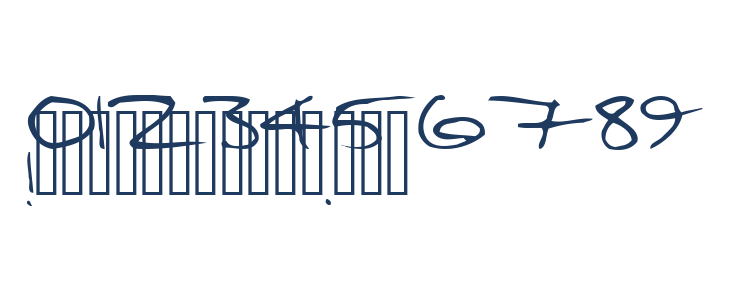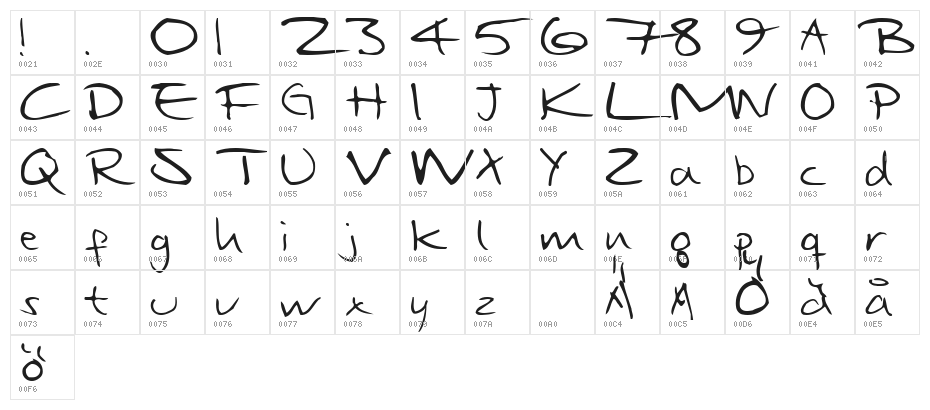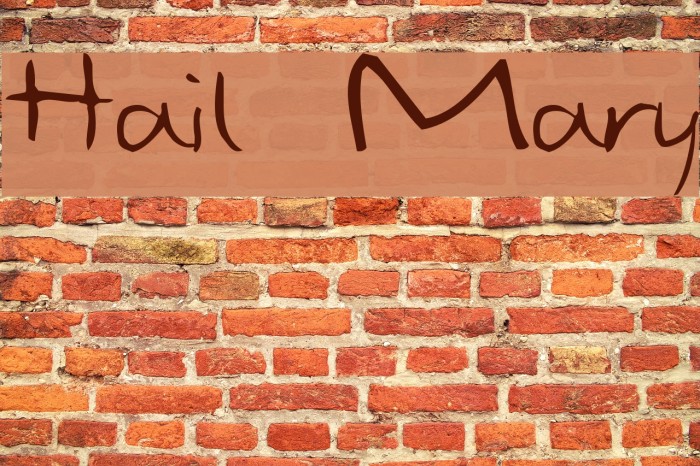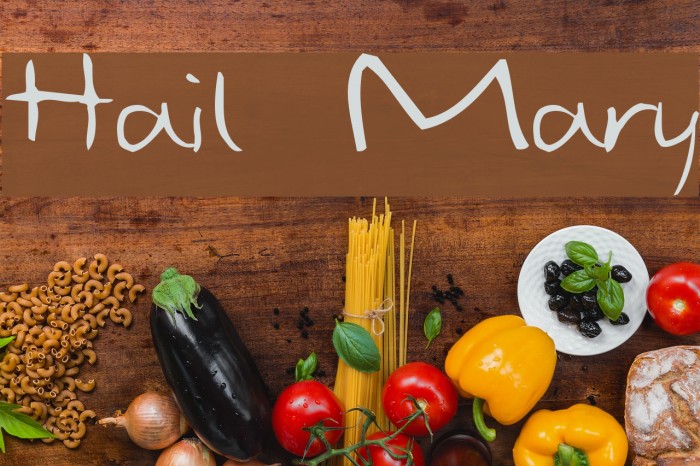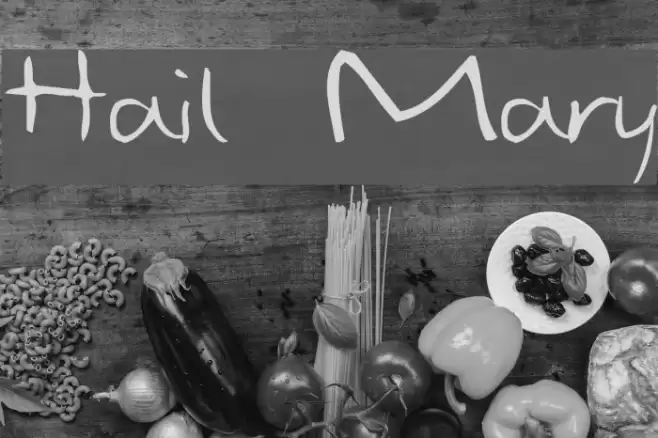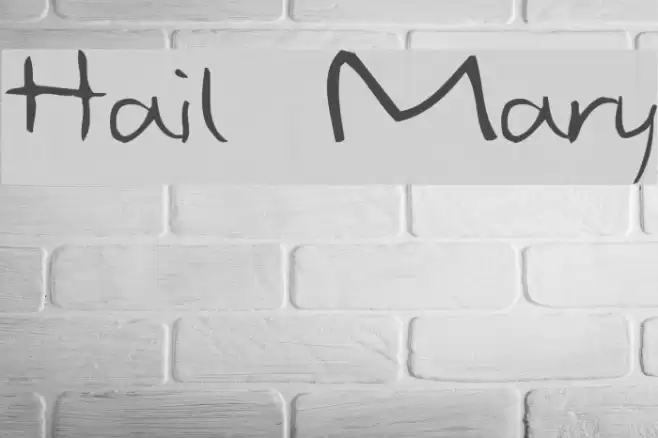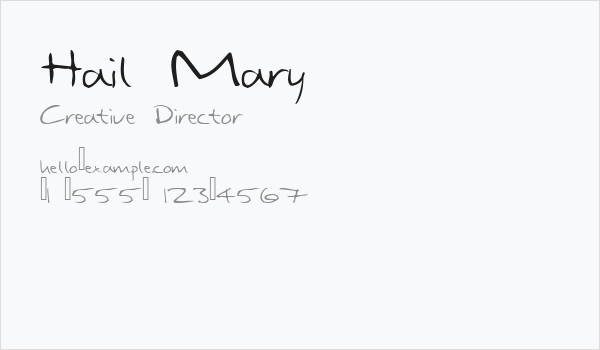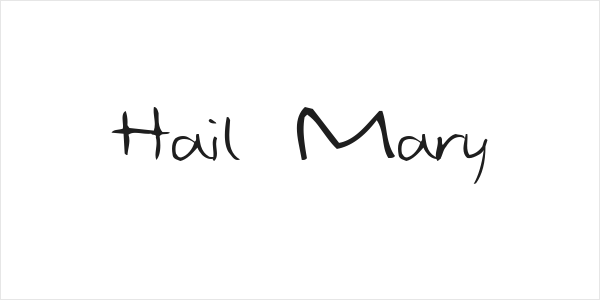
Hail Mary Font
Hail Mary Description
This font exudes a casual and handwritten style, characterized by its fluid and slightly irregular strokes that mimic natural handwriting. The uppercase letters are bold and dynamic, while the lowercase letters maintain a consistent flow with a touch of whimsy. The numbers are clear and distinct, matching the playful yet legible style of the alphabet. Special characters are integrated seamlessly, adding to the font's versatility. The overall appearance is informal and approachable, making it suitable for projects that require a personal touch.
| Proposed Projects | Ideal for greeting cards, personal blogs, informal invitations, and creative branding projects. |